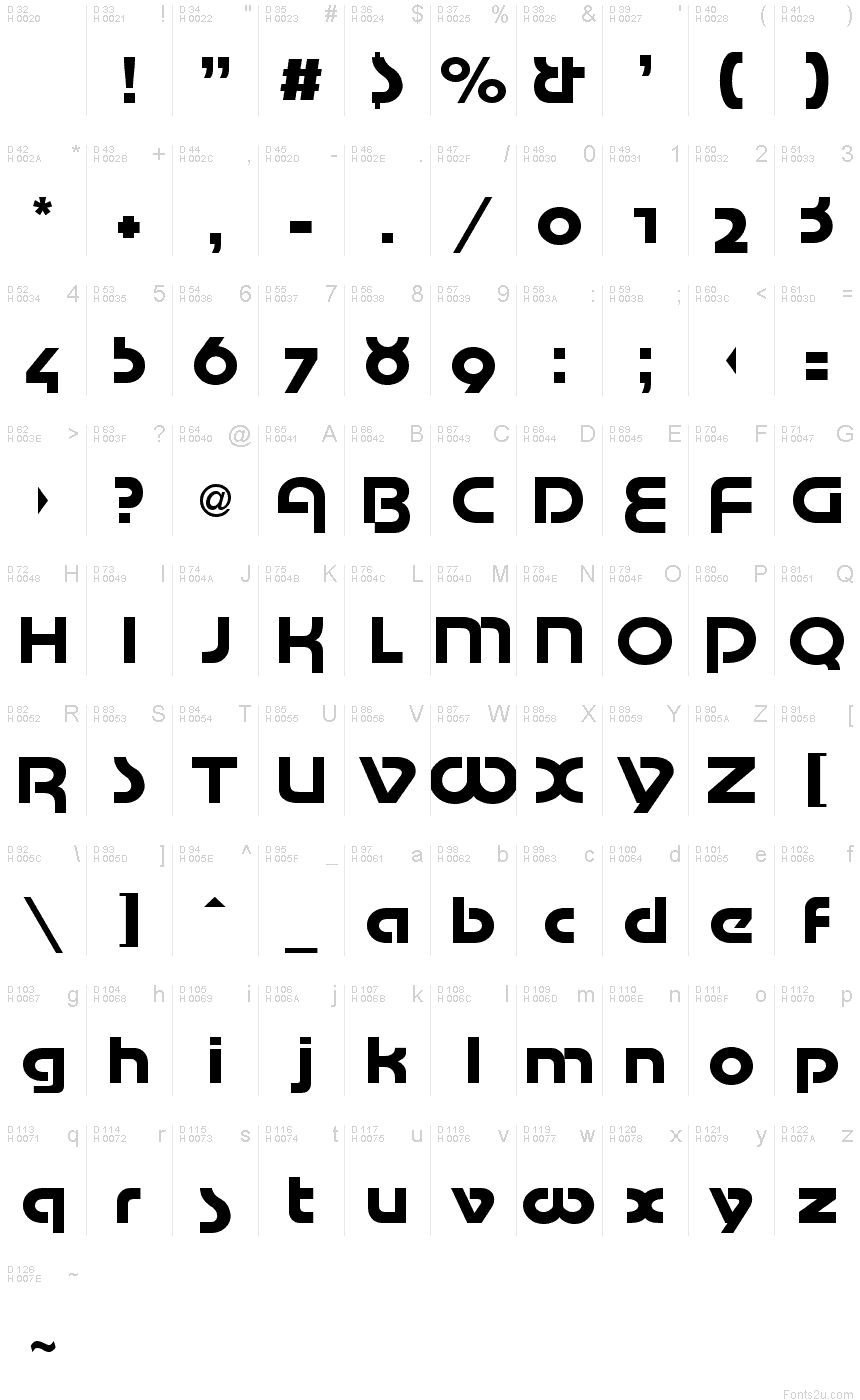
Mottek by Thomas E. Harvey is a free rounded geometric display font with a broad, weighty silhouette. Its smooth curves, blunt joins, and tightly built letterforms create a compact, machine-cut appearance, with just enough irregularity to keep the design lively.
Logo design is its strongest setting, especially for product brands seeking a solid, unconventional wordmark. The letters feel almost like fitted parts. That modular construction suits packaging and event posters, where the type becomes part of the graphic system.